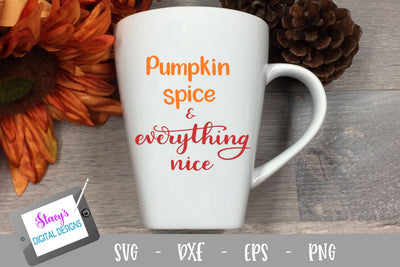
Fall SVG - Pumpkin spice and everything nice SVG
This handlettered fall SVG says 'Pumpkin spice and everything nice'. Use your Cricut or Silhouette (or other cutting machine) to create a shirt, mug, onsie, tote, or other fall project. After your purchase, you can immediately download a zip file containing the following files: